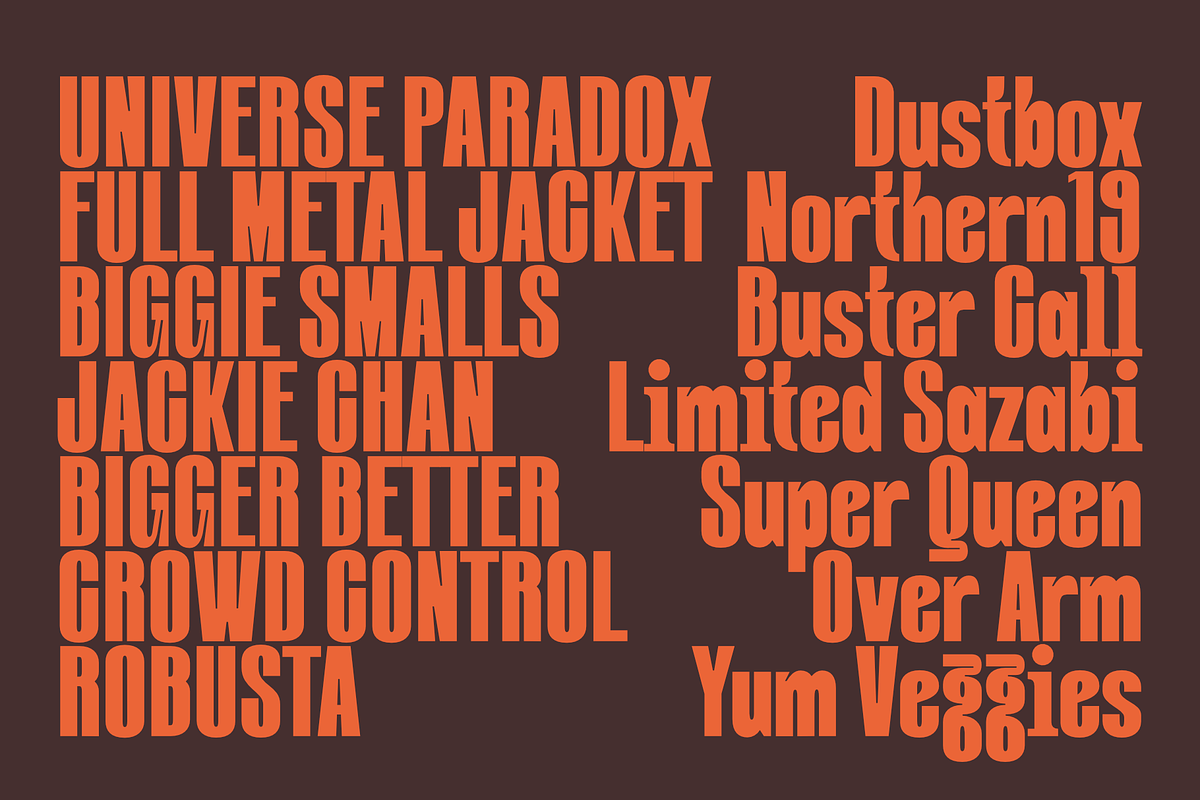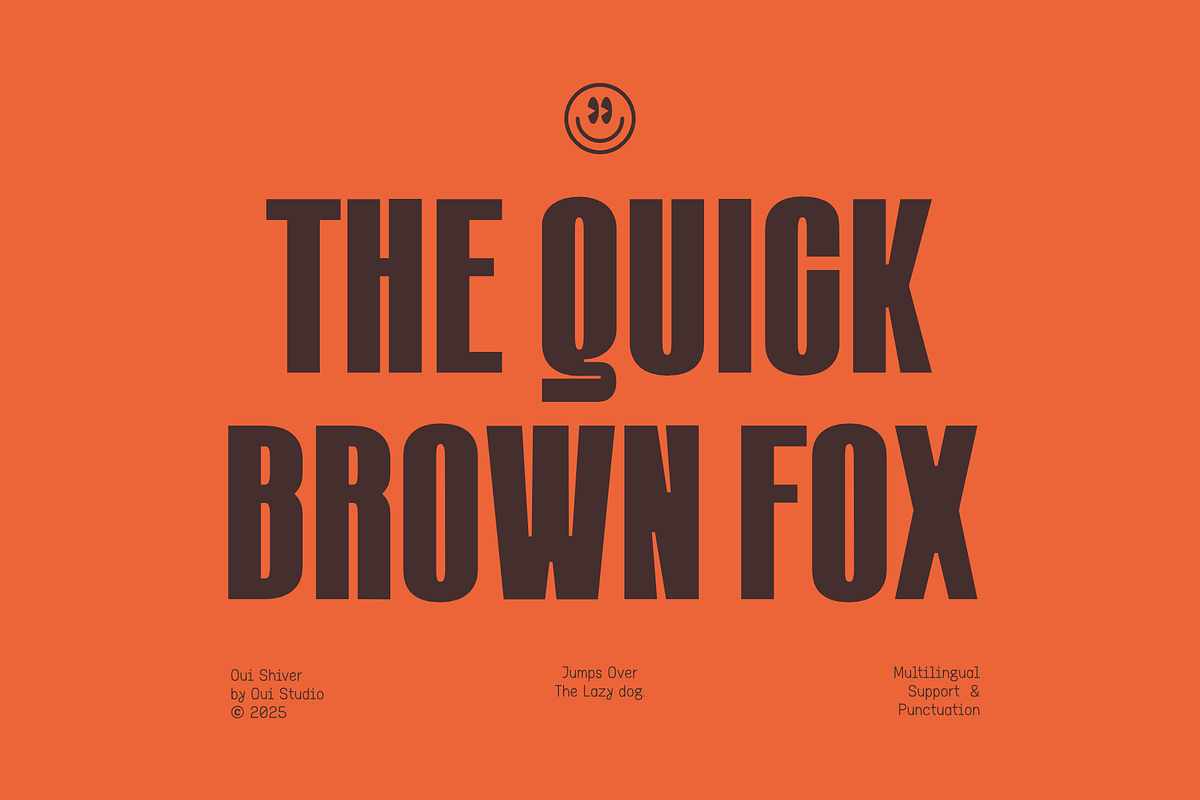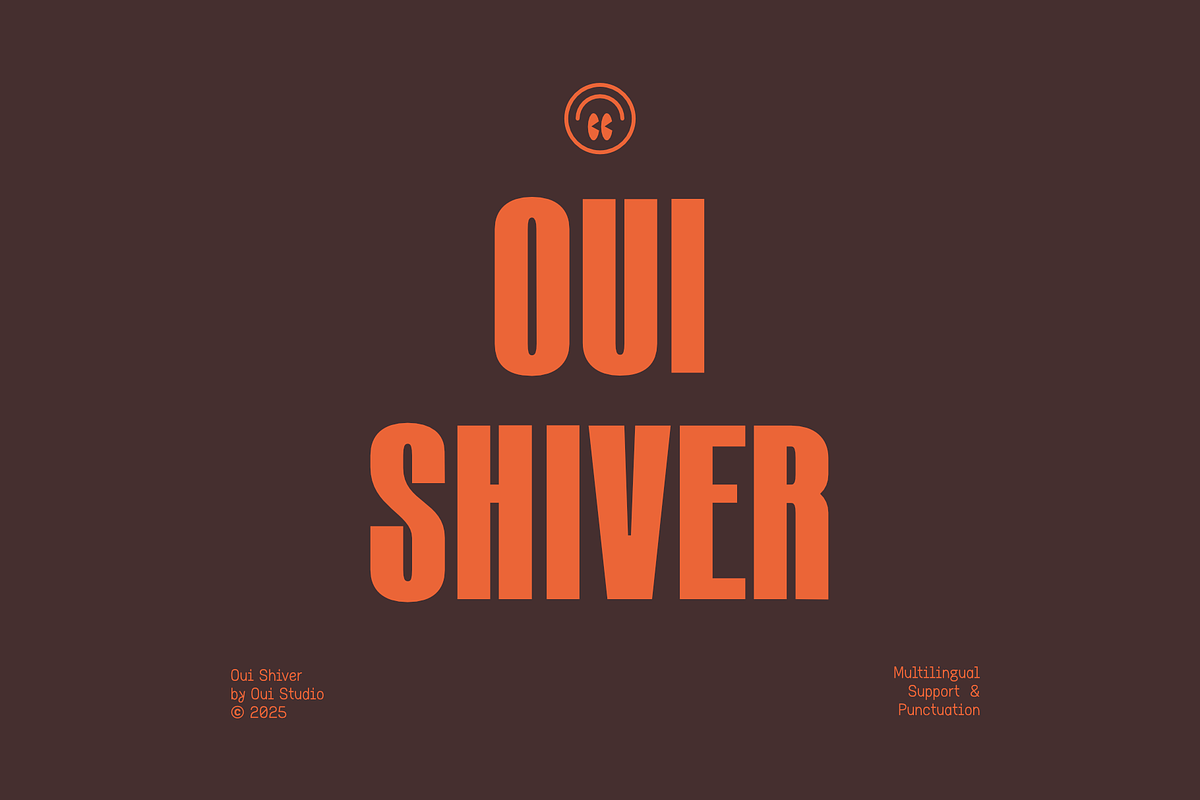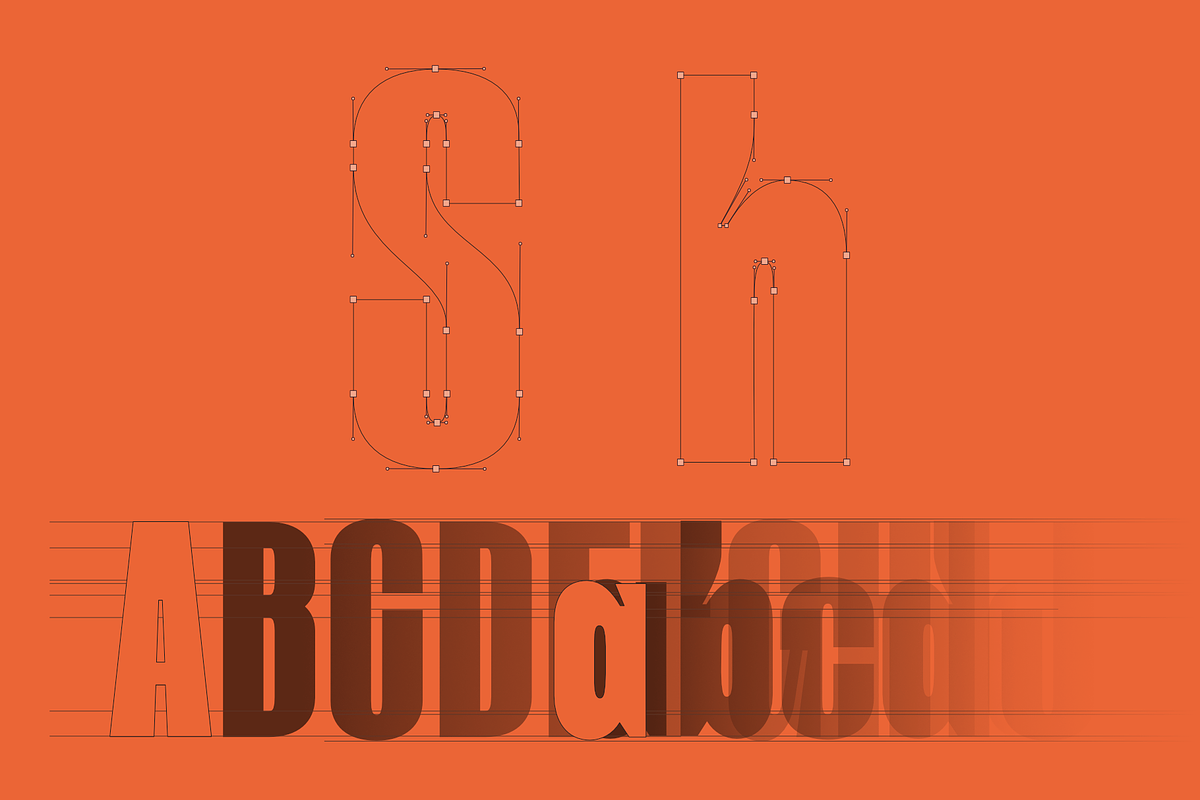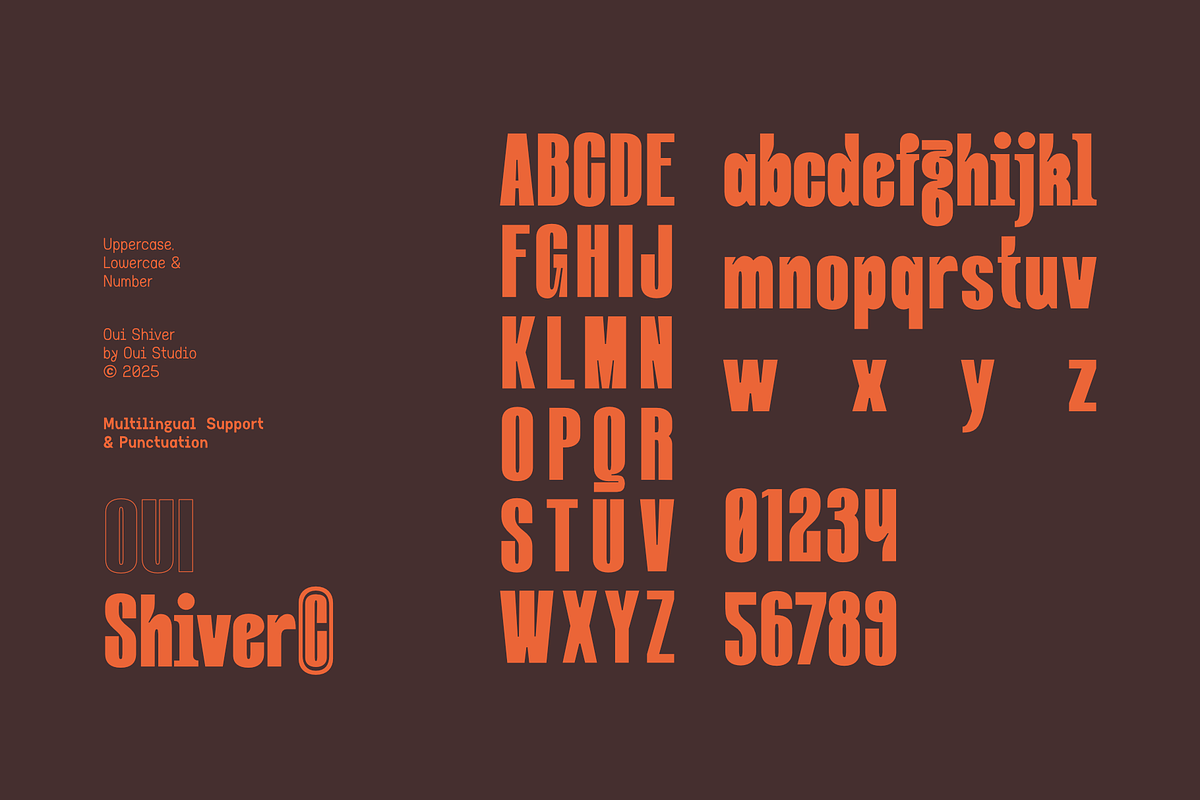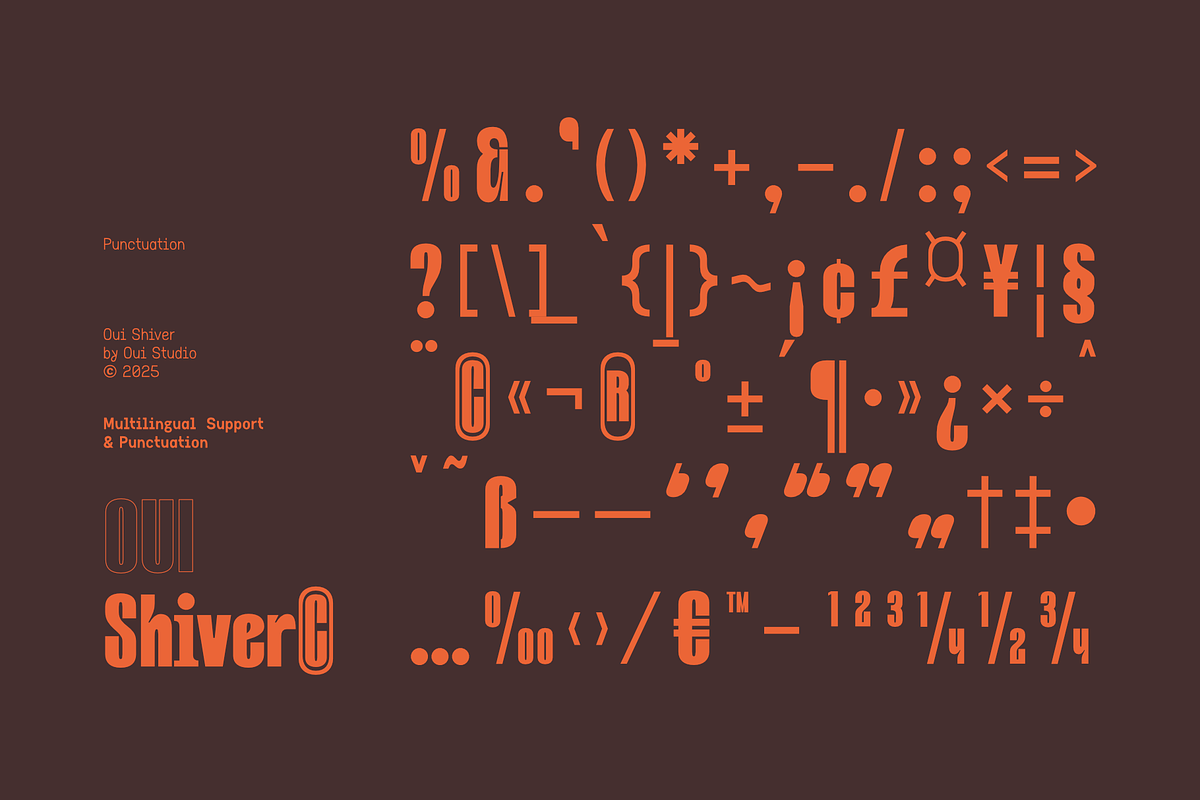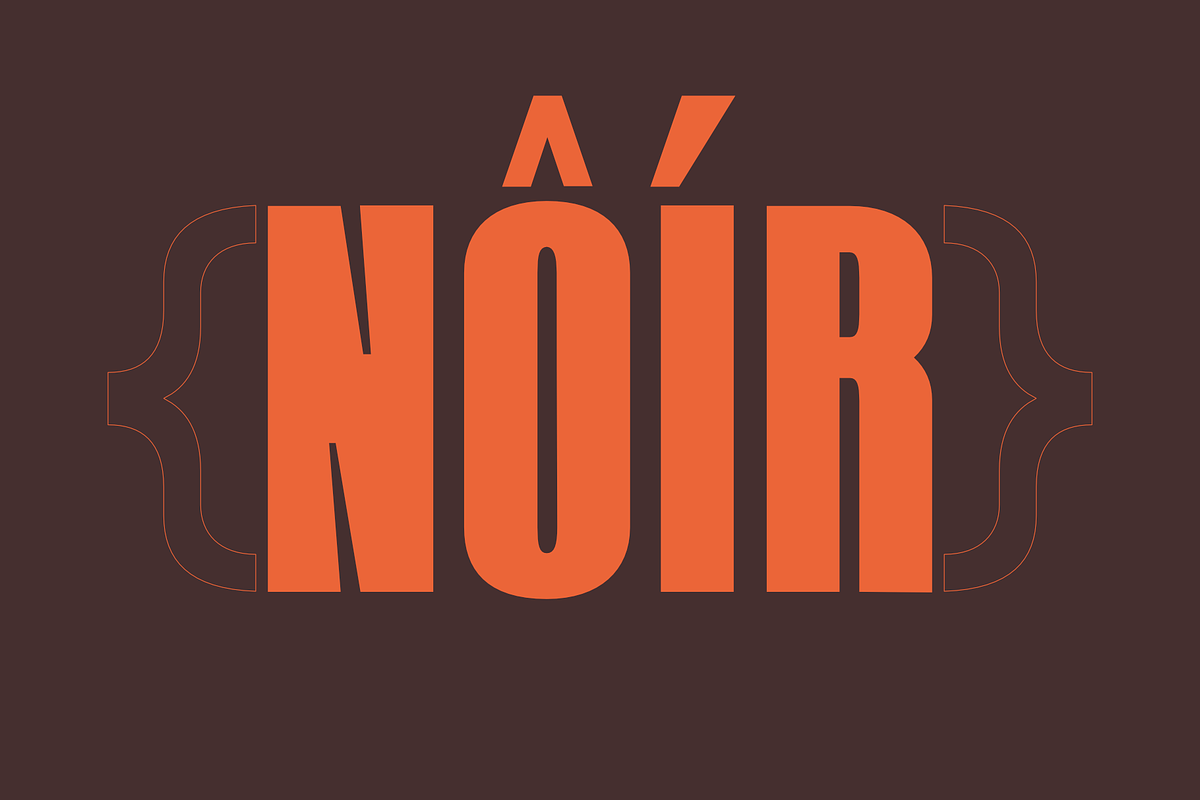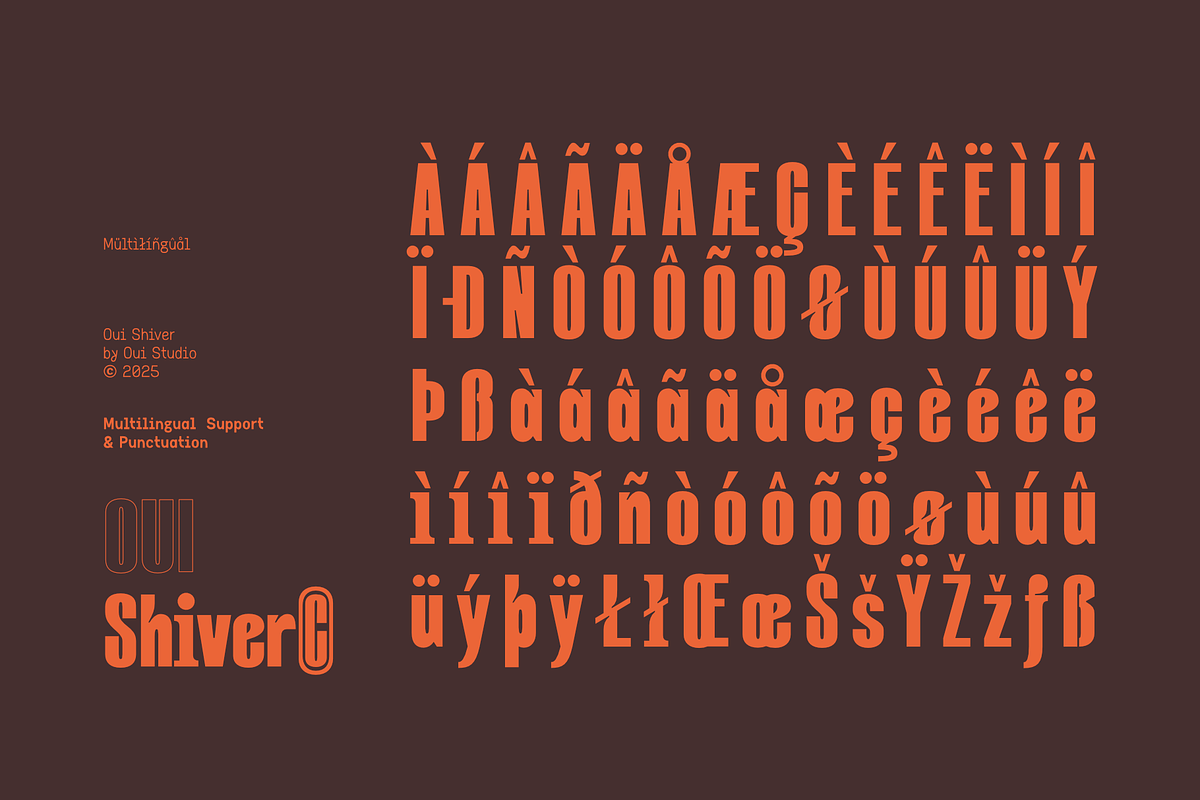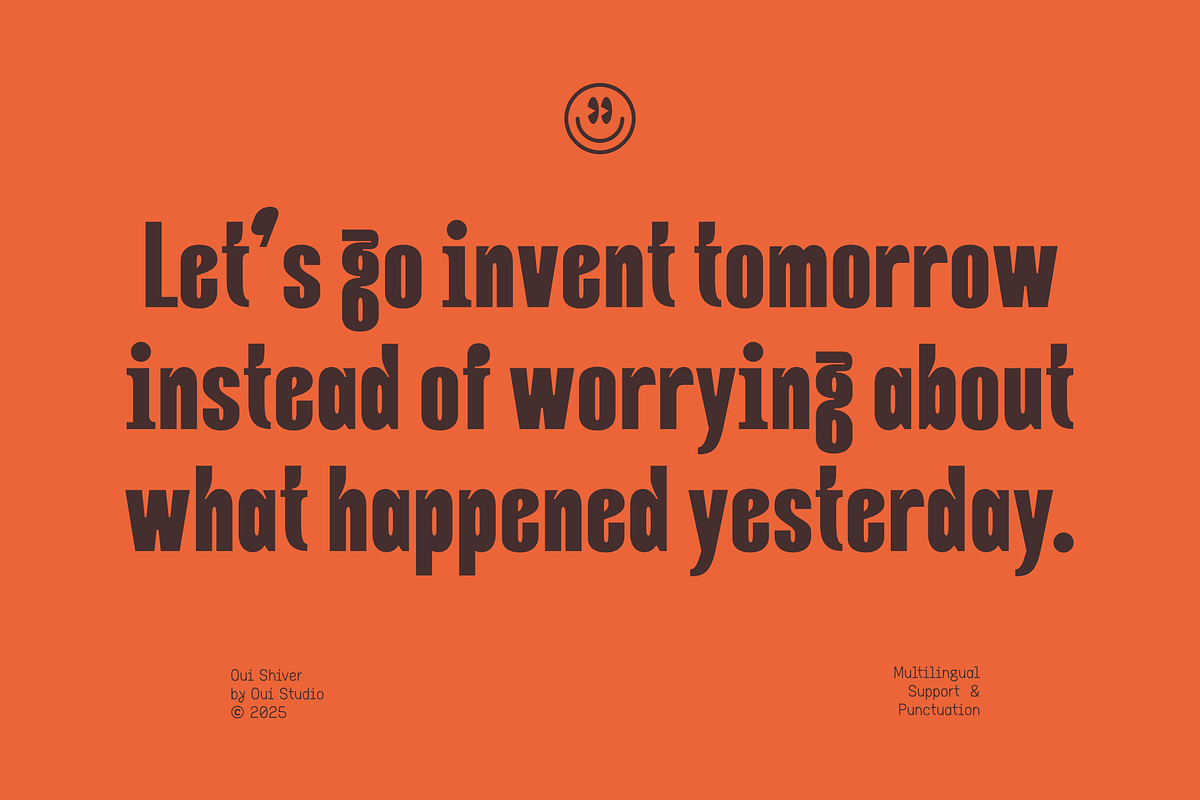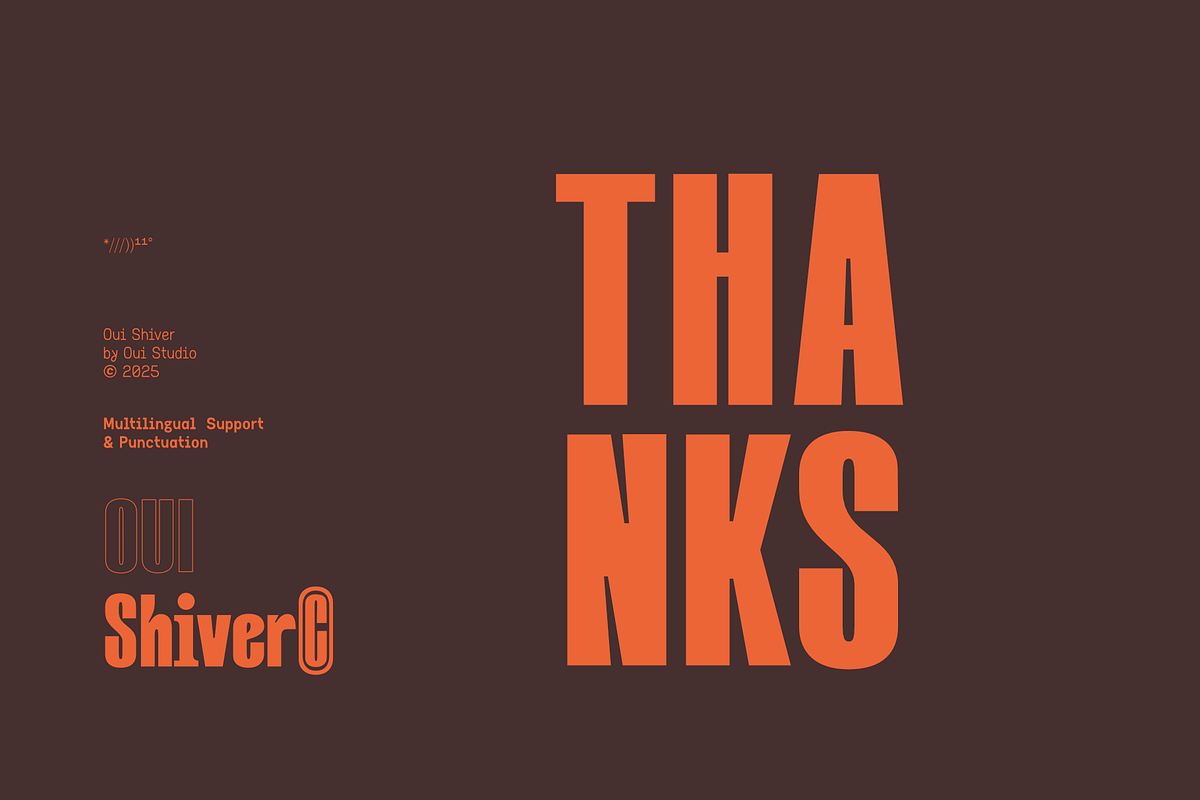
Oui Shiver
Oui Shiver is a bold, expressive display font that brings fierce energy and vintage groove together in one striking form. Its tall, condensed letter shapes are packed with attitude — blending the sharpness of retro poster typography with the smooth confidence of modern design. Each character feels handcrafted and deliberate, giving Oui Shiver a unique rhythm that instantly draws attention. Perfect for designers who want their titles and headlines to make a strong, unforgettable statement.
Ideal for posters, branding, music covers, and editorial layouts, Oui Shiver transforms simple text into powerful visual art. Its retro flair and modern edge make it versatile across genres — from indie aesthetics to high-impact commercial designs. Whether you’re crafting an album identity, a trendy campaign, or bold packaging, Oui Shiver delivers unmistakable character and stylish confidence with every letter.